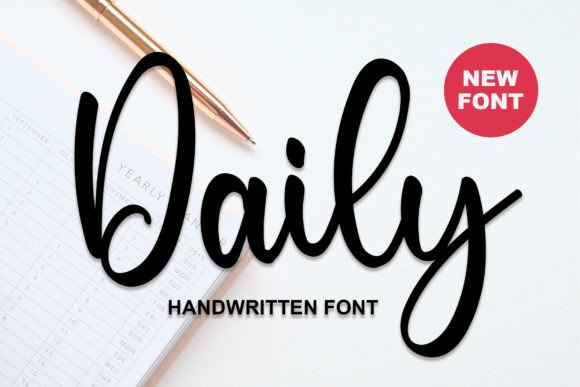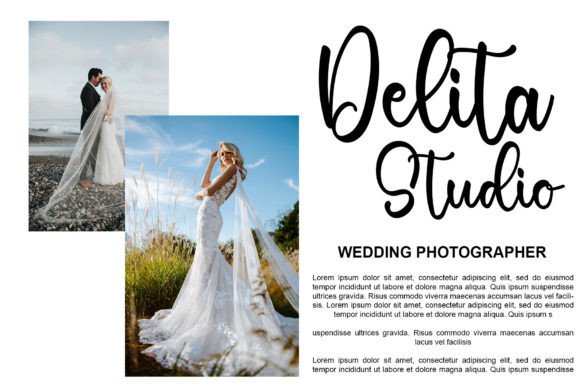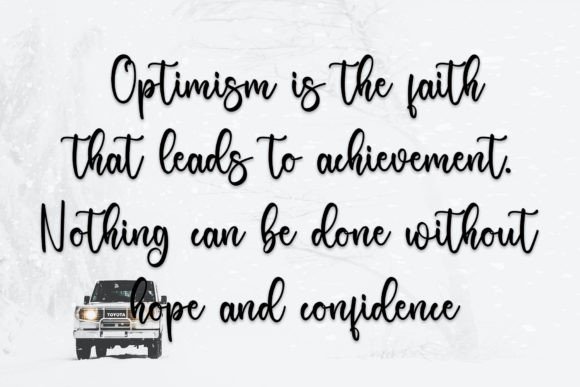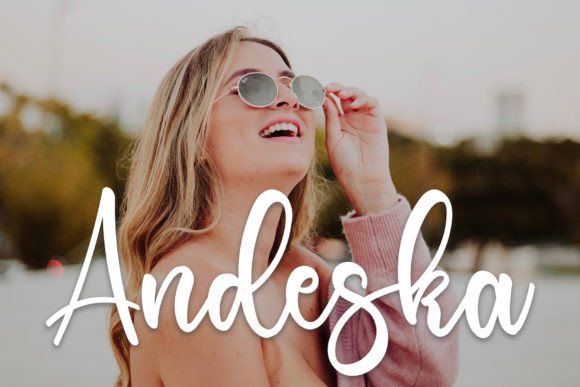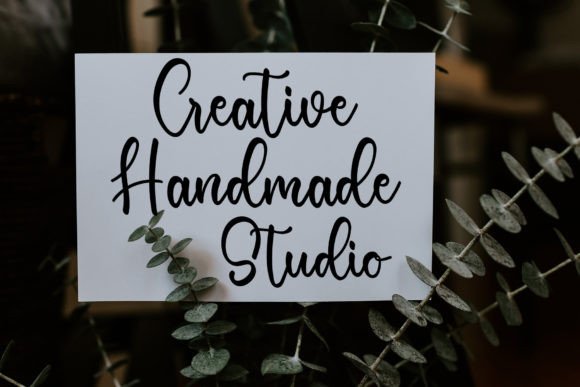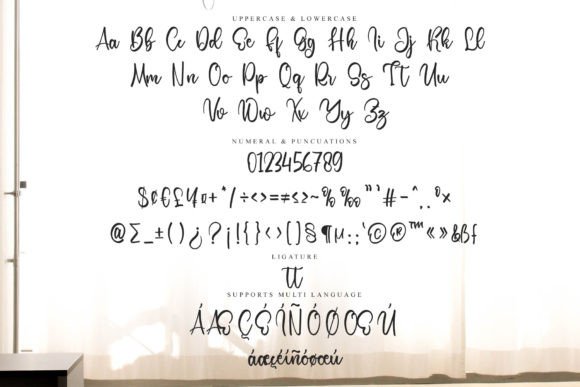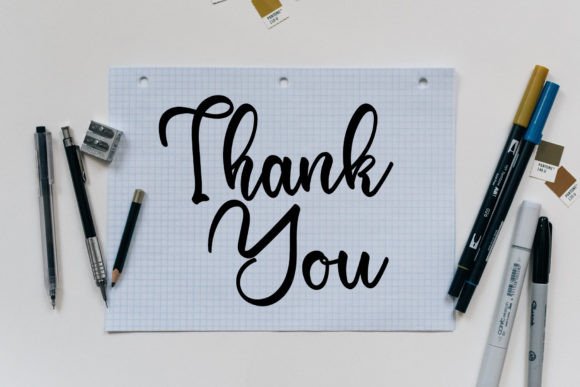
Daily Font
What Is Daily Font?
Daily Font is an elegant handwritten script designed to bring timeless beauty, warmth, and sophistication to your creative projects. Each letter is crafted with graceful curves and delicate strokes that evoke a sense of authenticity and charm. Whether you’re creating romantic wedding invitations or memorable branding, Daily adds an elevated, heartfelt feel to every design.
Its smooth flow and balanced proportions make it an essential tool for any designer who values both style and versatility.
Daily Font shines across a wide range of applications. For wedding invitations, it offers the perfect blend of elegance and romance. The flowing details and handcrafted character create a refined, personal touch that makes every invitation feel special.
Greeting cards and thank-you notes benefit from Daily’s warmth and sincerity. Its gentle lines and graceful forms help your words feel genuine and thoughtful, leaving a lasting impression on your recipients.
Inspirational quotes and social media graphics also come to life with Daily Font. The charming script draws attention to your message and makes every word look polished and beautiful.
When it comes to branding, Daily brings a unique, artistic flair. Use it in logos, business cards, packaging, and marketing materials to convey authenticity, craftsmanship, and sophistication. The handwritten look ensures your brand feels personal and approachable.
Whether you design for print or digital platforms, Daily adapts seamlessly and maintains its visual impact across all mediums.
Why Should You Choose Daily Font?
One of the main reasons to choose Daily Font is its readability. Despite its elegant style, each letter remains clear and legible at any size. Whether you’re designing small labels or oversized banners, your text will look crisp and professional.
Daily pairs beautifully with minimalist serif or sans-serif fonts, helping you create layouts that are balanced and visually appealing. This flexibility allows you to adapt your designs to any aesthetic without losing cohesion.
Designers appreciate how every glyph is meticulously crafted to deliver stunning results right out of the box, saving time and elevating the quality of every project.
Daily Font adds sophistication, authenticity, and emotion to your designs. Its flowing lines and delicate details create an inviting atmosphere that resonates with your audience. This connection is especially valuable for projects meant to inspire or celebrate special moments.
Even simple layouts feel elevated when you use Daily. The elegant script brings personality and style without overwhelming your composition.
Using a premium handwritten script like Daily shows your dedication to thoughtful, professional design. Clients and customers will notice and appreciate this attention to detail, helping you build trust and stand out.
Daily Font is more than a charming script—it’s a versatile design asset that helps you communicate your ideas with beauty and grace. From wedding invitations and heartfelt cards to logos and social media graphics, this font adapts to countless uses and always leaves a lasting impression.